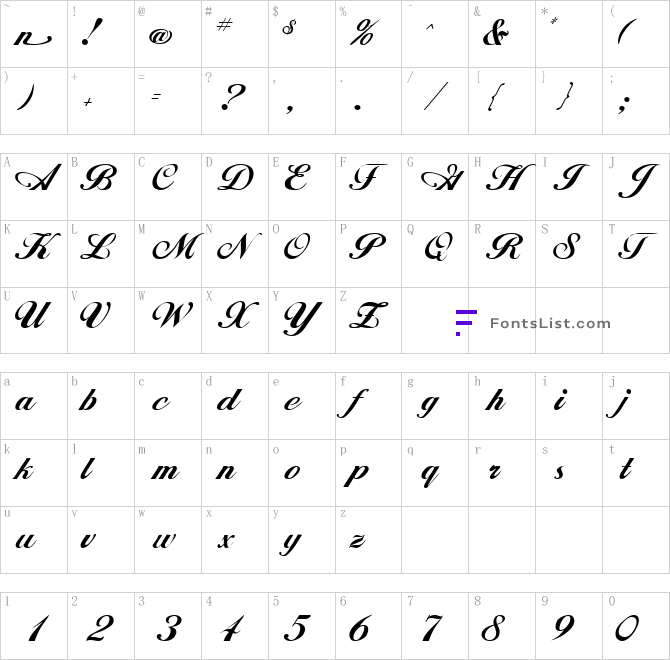
- Font Name:Alison
Alison-Regular.ttf is a very beautiful artistic font, Alison-Regular.ttf is widely used in the design and printing of various books and pictures,Alison-Regular.ttf has a strong visual impact,Alison-Regular.ttf is a commonly used font in newspapers, magazines and books, and is used in posters, e-commerce Poster design, store design, logo design, font design and other fields.Alison-Regular.